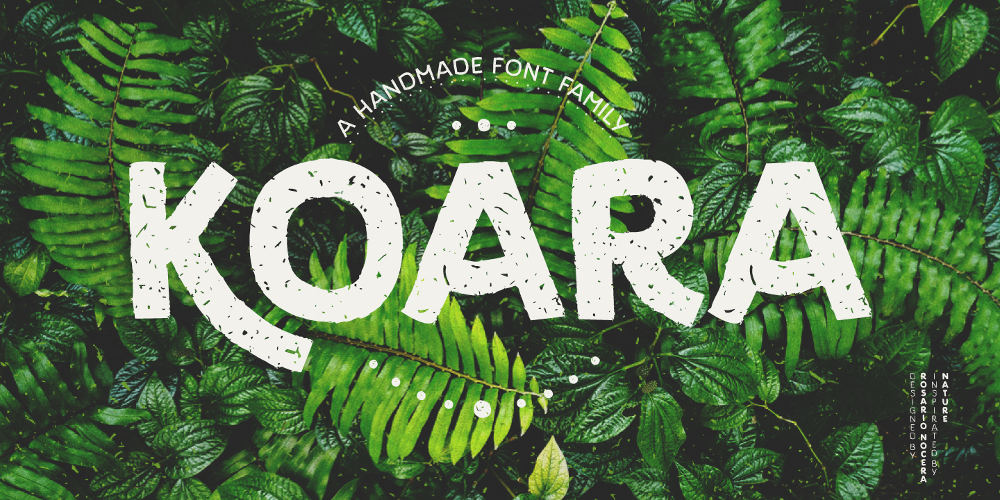
Koara – Webfont & Desktop Font
Koara font by Racario Nocera is a handmade font family inspired by nature. It’s composed of two versions, (rough and wild) and available in the weights, light, regular and bold, with an alternative capital K, linear lowercase and capital numbers.